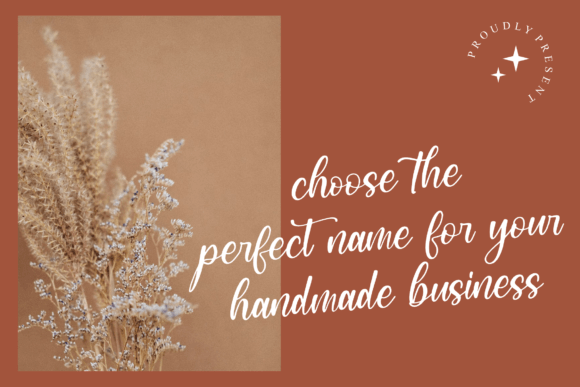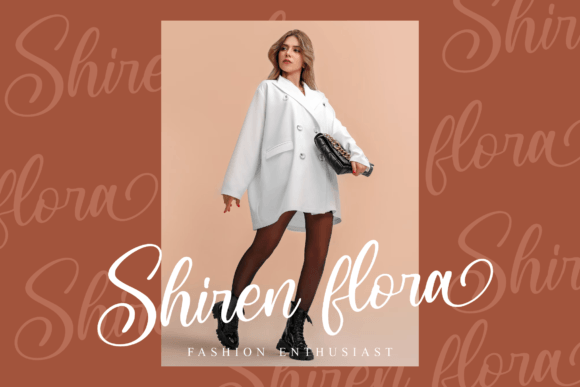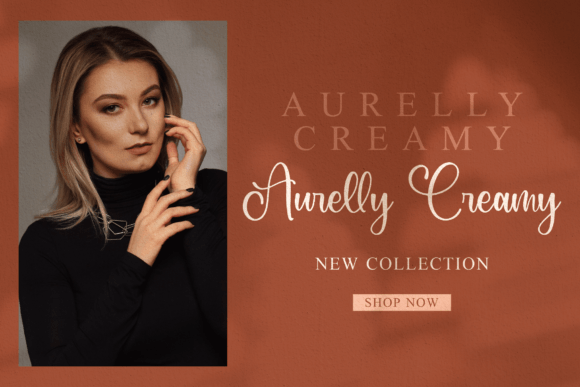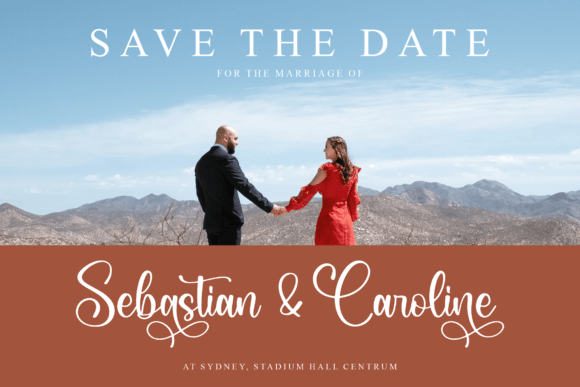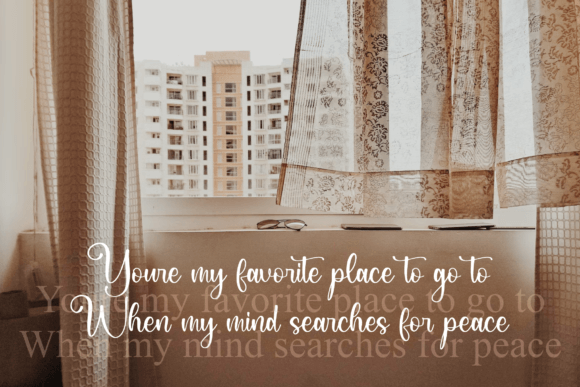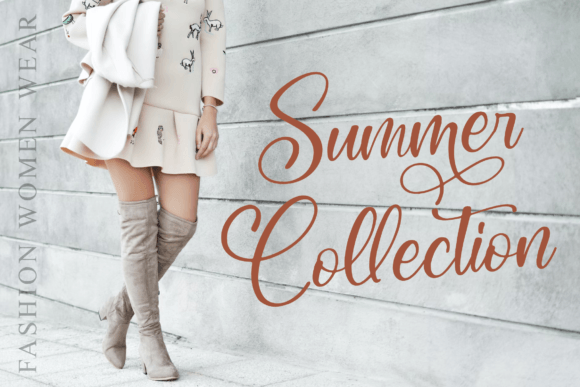
Introduction to Rosthina Font
Rosthina – Beautiful Script Font suitable for any projects such as logos, branding projects, homeware designs, product packaging, mugs, quotes, posters, shopping bags, t-shirts, book covers, name cards, invitation cards, greeting cards, labels, photography, watermark, special events, and all your other lovely projects that need a beautiful script taste.
Key Features of Rosthina Font
Why Choose Rosthina Font?
Rosthina Font offers exceptional quality and versatility, making it a valuable addition to your design toolkit. Whether you’re creating for personal projects or commercial use, Rosthina Font delivers professional results.